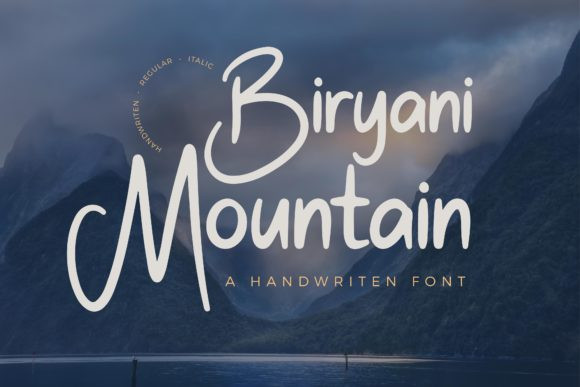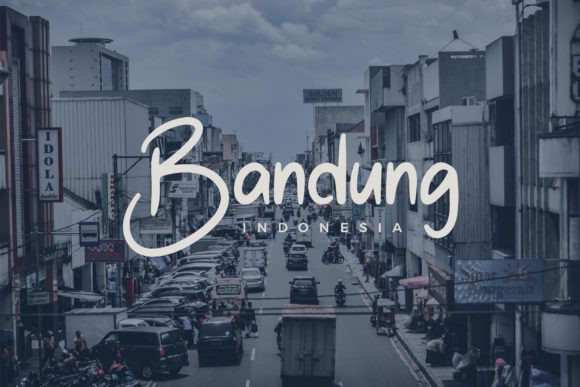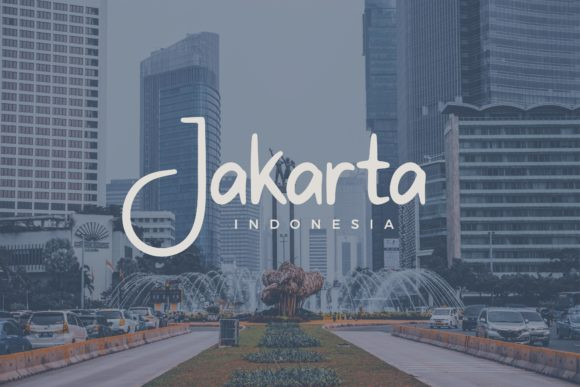
Biryani Mountain Font
Biryani Mountain is a beautiful and flexible handwritten font. Suitable to a wide variety of designs due to its neat and simple style, this font has the potential to become your favorite go-to font, no matter the occasion!